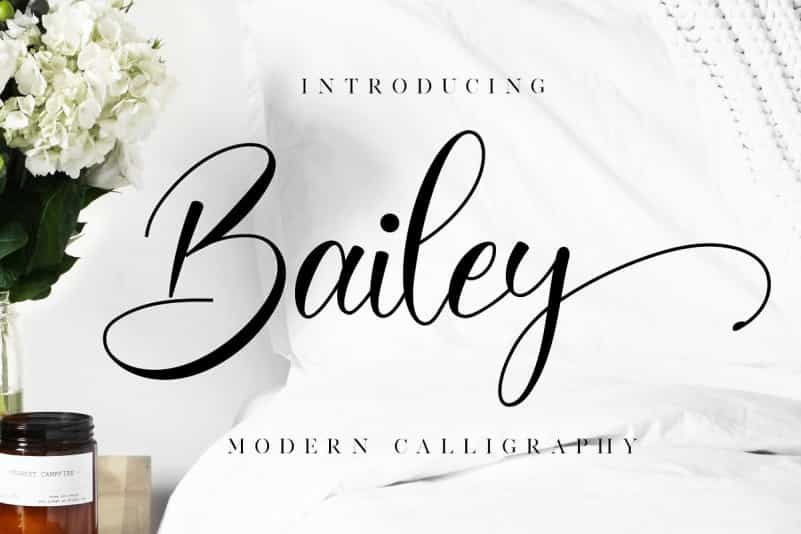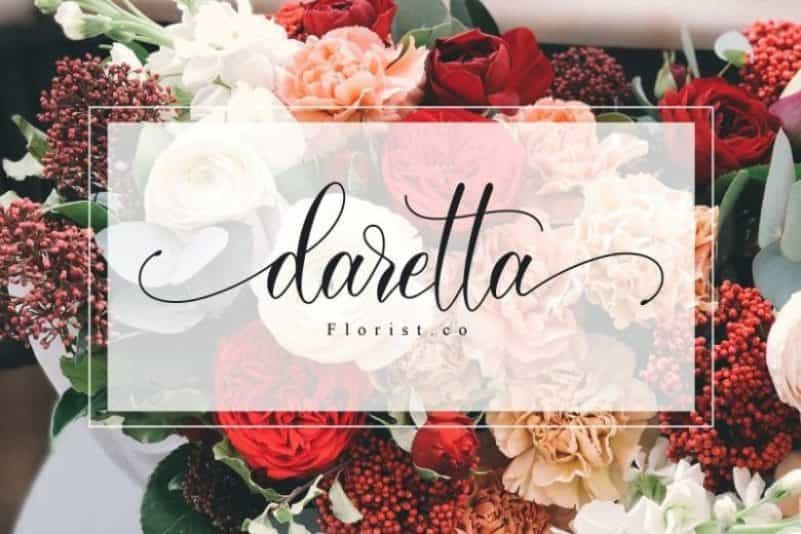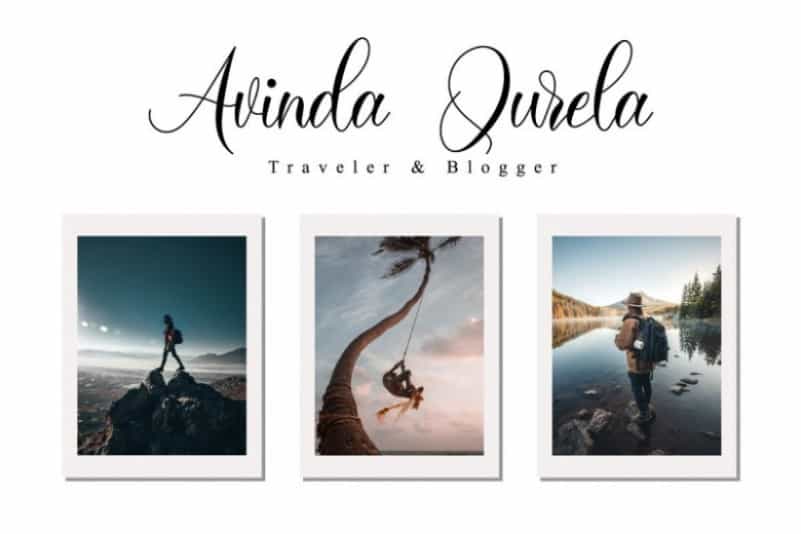
Bailey is a very attractive script font. It has a sophisticated, graceful and contemporary appearance that can be used for logos, branding, invitations, stationery , wedding designs , social media posts and all the other design in need of a handwritten touch.